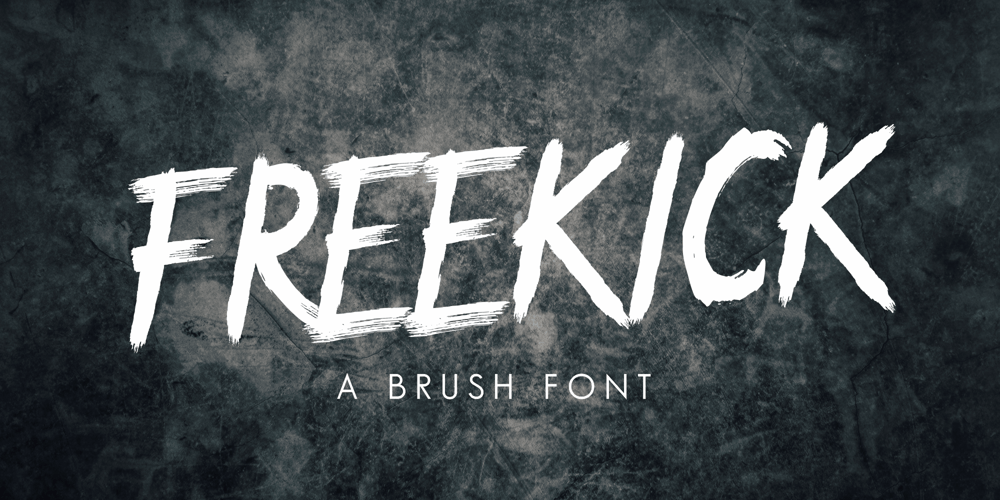
Freekick Font Family was designed by Su Wondo and published by Girinesia. Freekick contains 1 styles and family package options. FREEKICK – Brush Font would perfect for sports, music festival, special events or anything What Included this font :PUA Encoded CharactersFully accessible without additional design software.Fonts include multilingual support for; Afrikaans, Albanian, Catalan, Danish, Dutch, English, Icelandic, Italian, Spanish, Portuguese, German, Swedish, Norweigen, Polish, Indonesian, Zulu and etcSimple installations